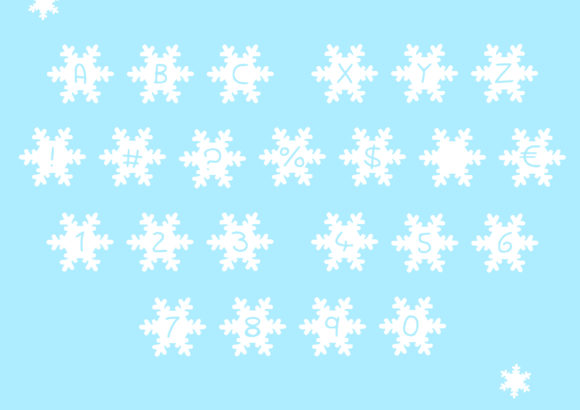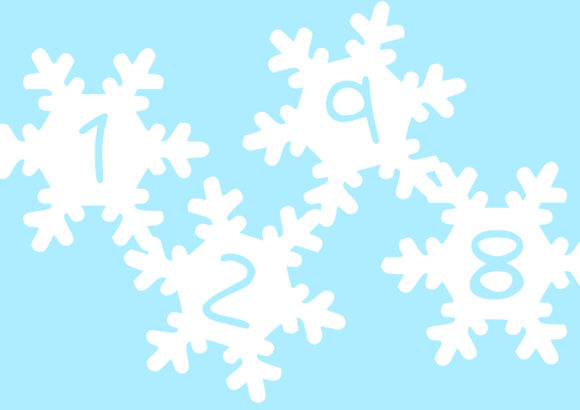
The Magic of Frost Play Font: Elevate Your Winter Creations
An Honest Review of Frost Play Font
- ✨ Elegant Winter Aesthetic: Frost Play Font embodies the magic of winter with its delicate, frosty design that instantly adds a touch of sophistication to any project.
- ✅ Versatility: Whether you’re working on a festive holiday card, a winter-themed craft, or a snow-inspired branding project, Frost Play Font adapts seamlessly to any topic.
- 💫 Unique Character: The font’s distinctive style sets it apart from more common fonts, making your designs stand out in a crowd.
While Frost Play Font is incredibly versatile and beautiful, there are a few things to keep in mind:
- 🤔 Legibility at Small Sizes: Like many decorative fonts, Frost Play can become a bit tricky to read at very small sizes. It’s best used for headlines or larger text elements.
- ⚠️ Occasional Kerning Issues: Some users have reported minor kerning issues between certain letter combinations. However, these can often be adjusted manually in most design software.
The Backstory of Frost Play Font
Frost Play Font was designed with the winter season in mind, aiming to capture the whimsical and magical feel of frosty mornings and snowflakes gently falling. The designer, inspired by the intricate patterns of ice and snow, crafted a font that would bring a touch of winter wonder to any project. With its elegant lines and frosty aesthetic, Frost Play Font quickly became a favorite among designers looking to add a seasonal touch to their work.
Q: Is Frost Play Font suitable for body text?
A: While Frost Play Font is stunning for headlines and decorative text, it’s not ideal for body text due to its decorative nature and potential legibility issues at smaller sizes.
Q: Does Frost Play Font support multiple languages?
A: Frost Play Font supports a range of languages, but its coverage may vary. It’s best to check the character set and language support before using it for a multilingual project.